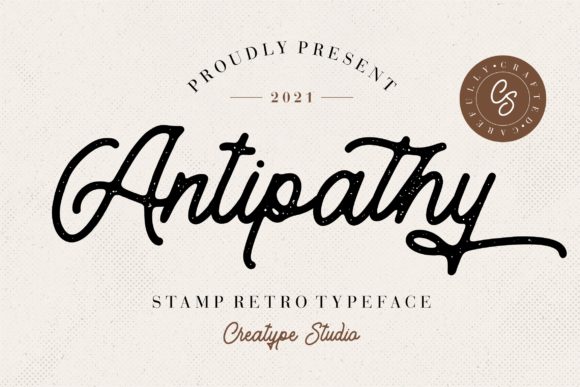
Unleash the Timeless Charm of Antipathy: A Font Symphony for Your Creative Expression
Immerse yourself in the captivating world of Antipathy font, a visual masterpiece that exudes vintage elegance with its flowing handwritten style. This exquisite script dances across the page with a graceful charm, bringing a touch of nostalgia to your creative endeavors. Whether you're crafting heartfelt wedding invitations, expressing gratitude with thank you cards, or capturing profound quotes, Antipathy elevates your words with its timeless beauty.
Let Antipathy's enchanting curves enchant your greeting cards, transforming them into heartfelt expressions of love and connection. It breathes life into logos and business cards, leaving an unforgettable impression that speaks volumes about your brand's personality. With its versatility, Antipathy effortlessly adapts to any design project, adding a touch of sophistication and artistry.
Harness the Power of PUA Encoding: Unlocking Endless Creative Possibilities
Antipathy's PUA encoding unleashes a realm of creative possibilities, granting you effortless access to a treasure trove of glyphs and swashes. This powerful feature empowers you to incorporate intricate embellishments and striking accents into your designs, transforming ordinary text into captivating works of art. Unleash your imagination and explore the boundless potential that awaits, creating visually stunning masterpieces that leave a lasting impact.